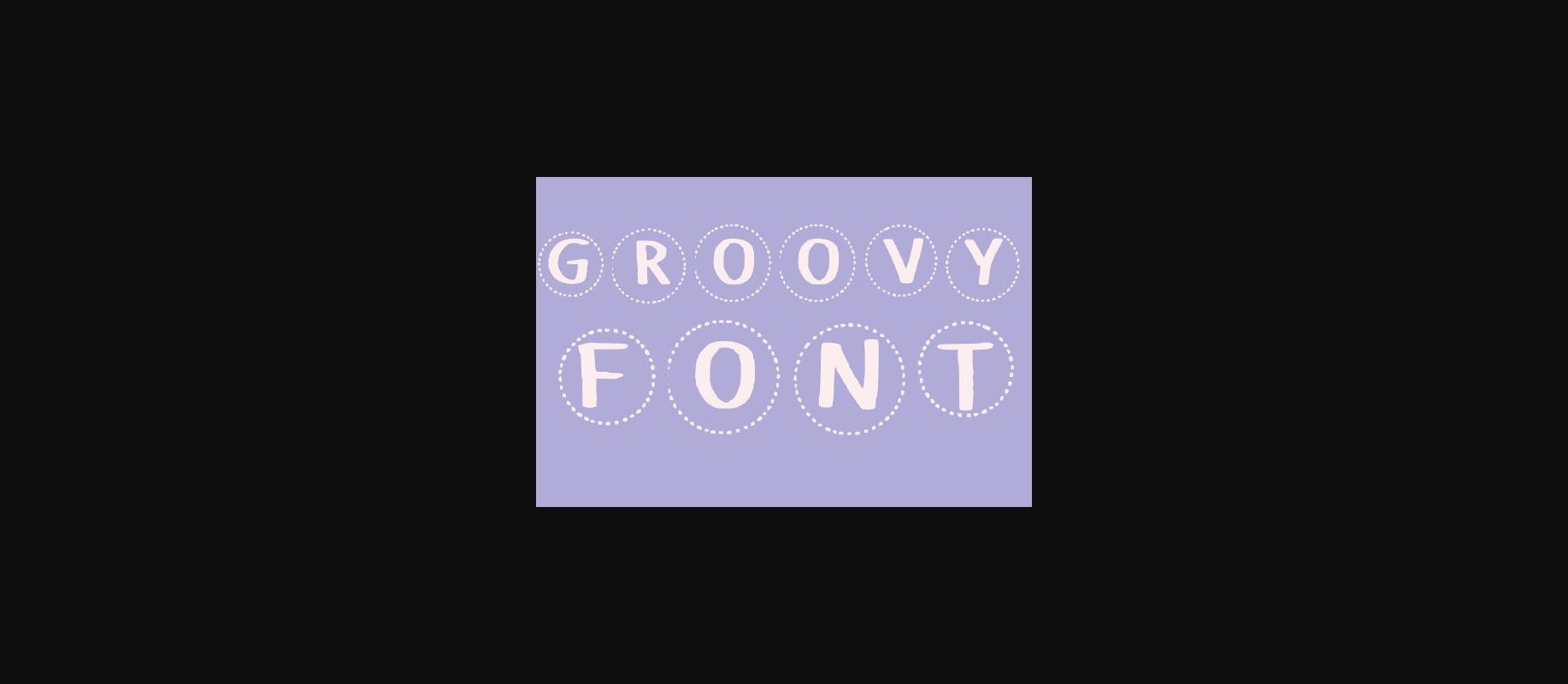
Groovy is a stylish and whimsical decorative font. It will look great on youthful designs, back-to-school projects, snack packaging, or anything informal.